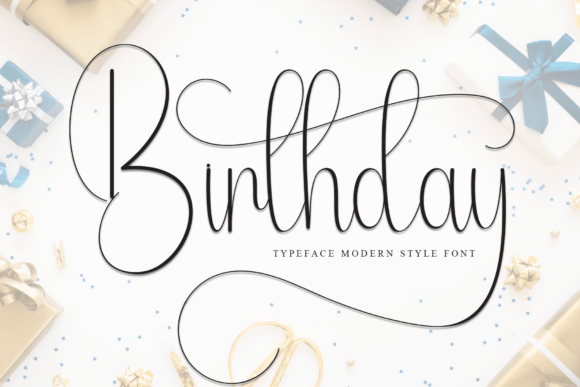
The Perfect Birthday Wishes in Style
As a designer, there’s no greater joy than bringing a client’s vision to life. Whether it’s a birthday party invitation or a special milestone celebration, the right font can make all the difference. You’ve spent hours pouring over fonts, searching for that perfect combination of elegance and whimsy. And then, you stumble upon it – the Birthday Font.
This stunning handwritten script font is more than just a pretty face; it’s a game-changer for designers. With its smooth, flowing strokes and natural, sophisticated feel, the Birthday Font adds a personal touch to any design. Whether you’re working on a branding project, a wedding invitation, or a social media post, this versatile font is sure to elevate your work.
So why is the Birthday Font so valuable to designers? For starters, its unique balance of charm and modernity makes it a standout in any design. It’s the perfect way to add a touch of personality to your work without sacrificing style or sophistication.
Birthday Font Key Features
- Font Family: A custom, cursive font designed specifically for birthday celebrations.
- Unique Characteristics: Features a celebratory feel, with swashes and flourishes that evoke the joy and excitement of birthdays.
Birthday Font Review
Overall, I think the Birthday Font has some nice qualities, but it also has some drawbacks. ✨
- Cute and playful feel, perfect for birthday invitations or party decorations.
- Easy to read, even in smaller font sizes.
- The font’s rounded edges and irregularities give it a hand-drawn feel that’s endearing and fun.
- ⚠️ The font may not be suitable for formal or professional designs, as its playful feel can come across as unprofessional.
- ⚠️ Some users may find the font’s irregularities to be distracting or difficult to read in certain contexts.
Overall impression:
I think the Birthday Font is a nice addition to any designer’s toolkit, but it’s not a one-size-fits-all solution. It’s perfect for projects that need a fun, playful touch, but may not be the best choice for more formal or complex designs.
Tips: Use the Birthday Font to create eye-catching headings and titles. Experiment with different font sizes and colors to add visual interest.
Tips: Use the Birthday Font to add a personal touch to your designs. Experiment with different font sizes and colors to create a unique look.
Tips: Use the Birthday Font to create visually appealing headings and titles. Experiment with different font sizes and colors to add emphasis.
The Birthday Font is perfect for:
- Birthday invitations and cards.
- Party decorations and signage.
- Personalized gifts and mementos.
Remember to have fun and get creative with the Birthday Font!
Alternatives to Birthday Font for Designers
Great Vibes is a modern, elegant script font perfect for creating a celebratory atmosphere. It’s ideal for wedding invitations, baby showers, and other special occasions. Great Vibes is more versatile and sophisticated than Birthday Font, making it suitable for a wider range of designs.
Comparison to Birthday Font: Great Vibes has a more refined and sophisticated look, while Birthday Font is more playful and casual.
Lobster is a bold, cursive font that’s perfect for adding a touch of personality to your designs. It’s ideal for social media posts, advertisements, and other promotional materials. Lobster is more dramatic and attention-grabbing than Birthday Font, making it suitable for designs that require a bold statement.